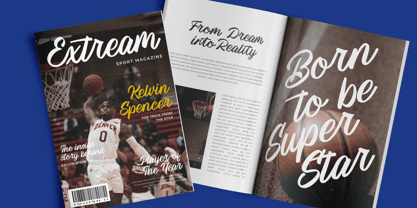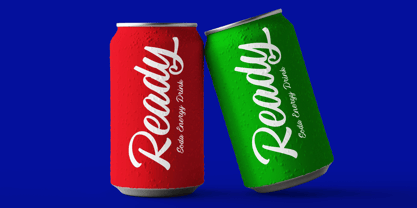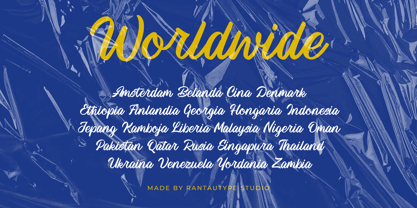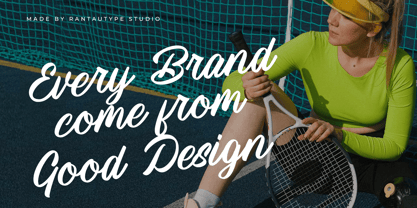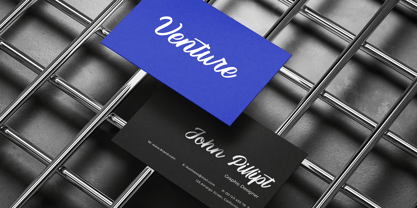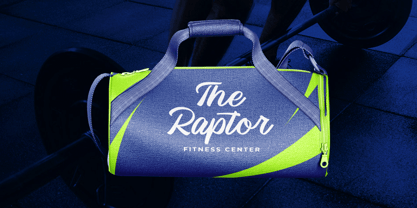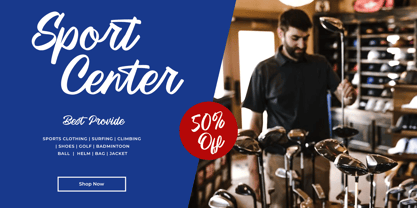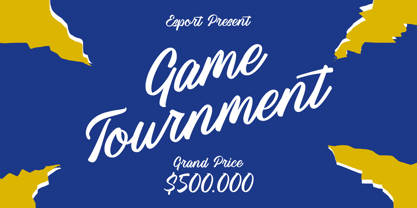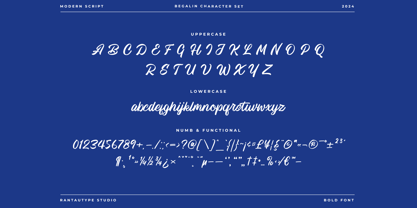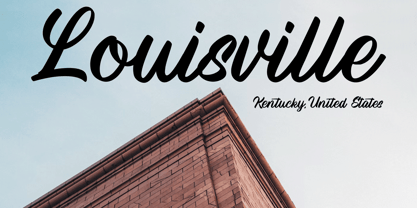
Begalin
by RantauType
The Begalin Font Family was designed by Yudi Pratama Chandra and published by RantauType. Begalin contains 1 styles. More about this family
Begalin is modern script font create with personal hand-lettering touch. Begalin is a perfect choice for any creative endeavor, lifestyle design such as logos, title, watermark on photography, cover, branding, display and magazine, wedding event, corporate brand, quotes, album cover, business card, business project, company branding and more project with handwritten taste.
Designers: Yudi Pratama Chandra
Foundry: RantauType